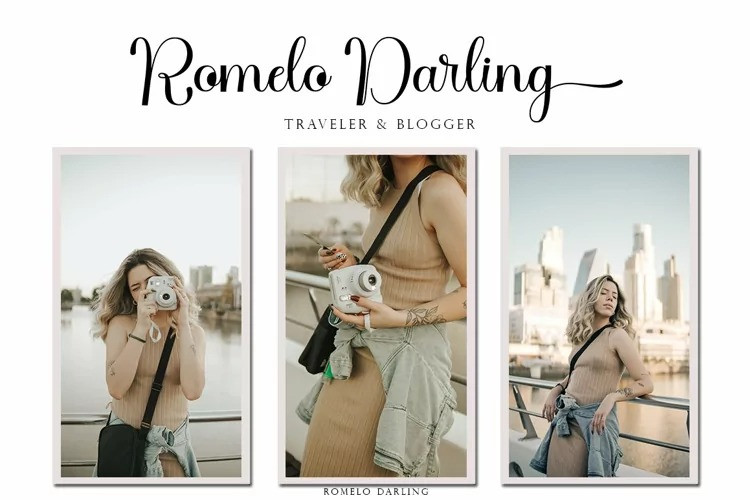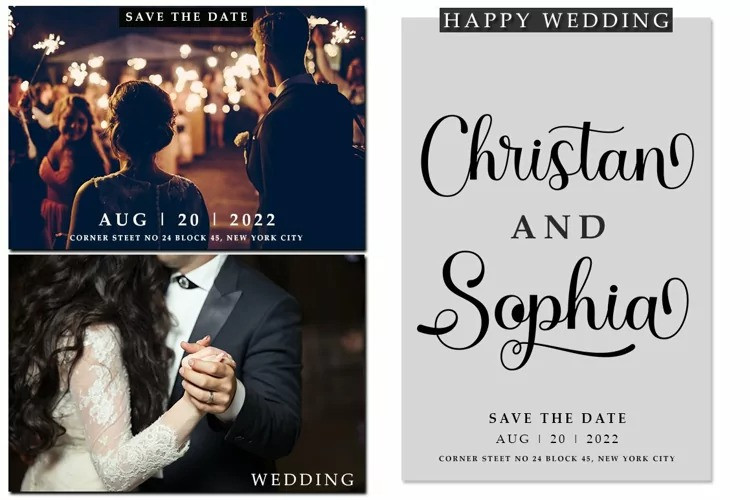
Chigoda Font
Chigoda Calligraphy Font
It’s a romantic and sweet calligraphy typeface with characters that dance along the baseline. Equipped with 351 glyphs. Chigoda Script is perfect for branding projects, homeware design, product packaging, use in business cards, invitation cards, etc. Quite as a stylish text overlay to a background image or anything that requires a touch of elegance.